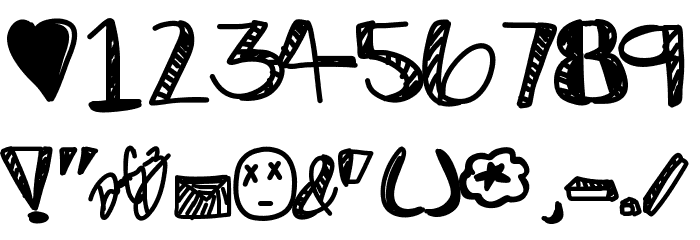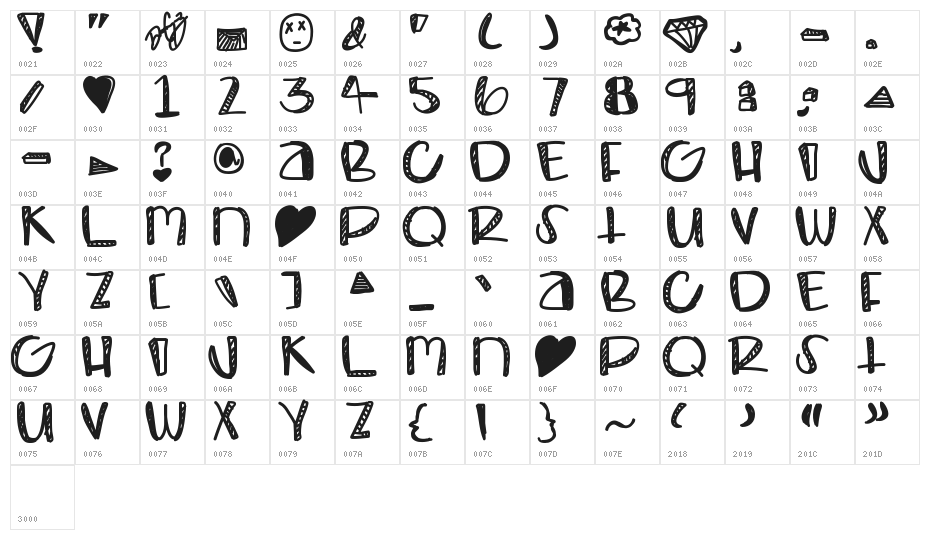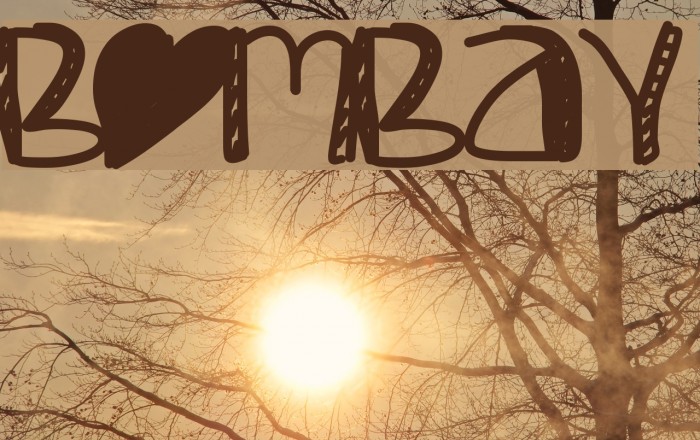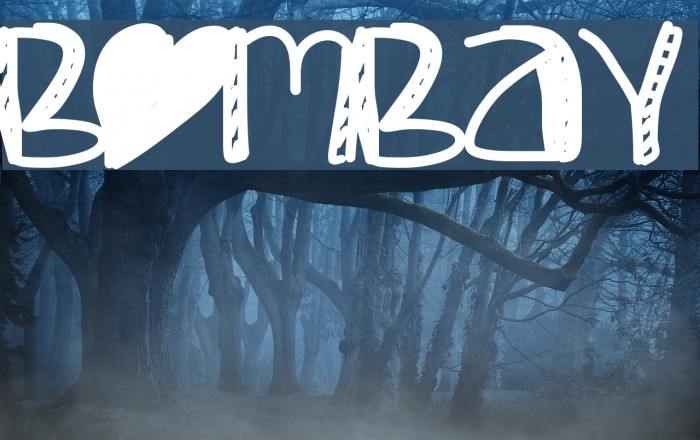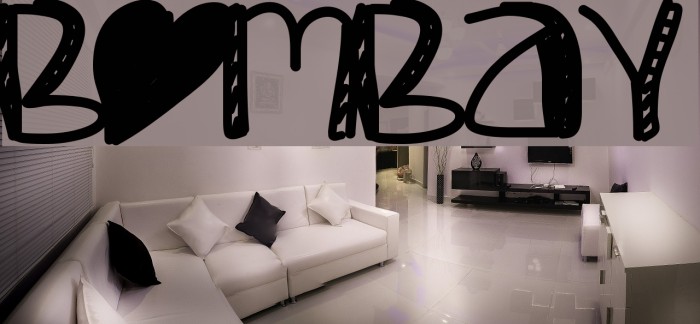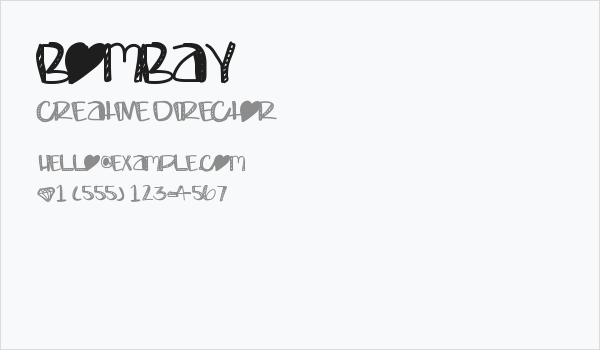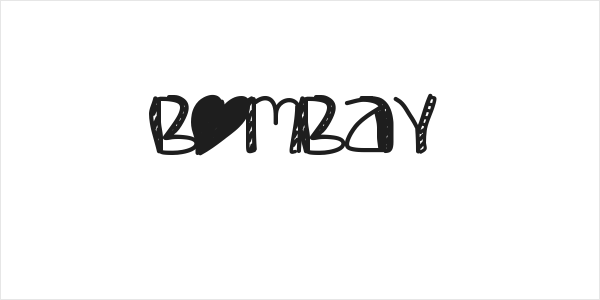
Bombay Font
Bombay Description
This playful and energetic font features a handwritten style with bold, irregular strokes that give it a lively and informal appearance. The letters are characterized by their uneven baseline and varying heights, creating a dynamic and whimsical look. The uppercase and lowercase letters maintain a consistent style, with rounded edges and a slightly slanted orientation. The numbers and special characters follow the same playful theme, adding to the font's overall charm. This font is perfect for projects that require a fun and casual touch, such as children's books, greeting cards, or creative posters.
| Proposed Projects | Ideal for children's books, greeting cards, creative posters, and informal branding. |